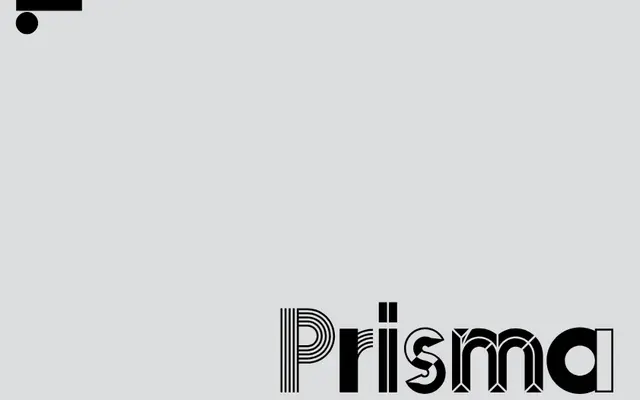
LL Prisma
Lineto · James Goggin, Laurenz Brunner, Jonathan Hares, Rafael Koch, Mauro Paolozzi, Arve Båtevik, Cornel Windlin, Viktoriya Grabowska · 2017
LL Prisma specimen from Lineto
A collaborative expansion of Rudolf Koch's 1930 decorative caps typeface Prisma, developed over two decades by eight Lineto designers and extended into 23 Latin and 23 Cyrillic styles.
Built on Koch's original five-line modular logic, the family explores repetition, subtraction and overlay to produce 23 formally distinct but internally consistent styles, each sold as a bundle of two Latin and two Cyrillic cuts. The Cyrillic counterparts were drawn in full by Viktoriya Grabowska for the 2023 super-family release, which also brought new kerning and formal corrections across all styles. The austere geometric shapes suit large-scale headline, packaging, signage and identity work.
A modular, geometric caps-only display typeface rooted in Rudolf Koch's 1930 Prisma, built on a five-line system of repetition, subtraction and overlay. Its ornamental, inline structure places it firmly in the decorative display category.